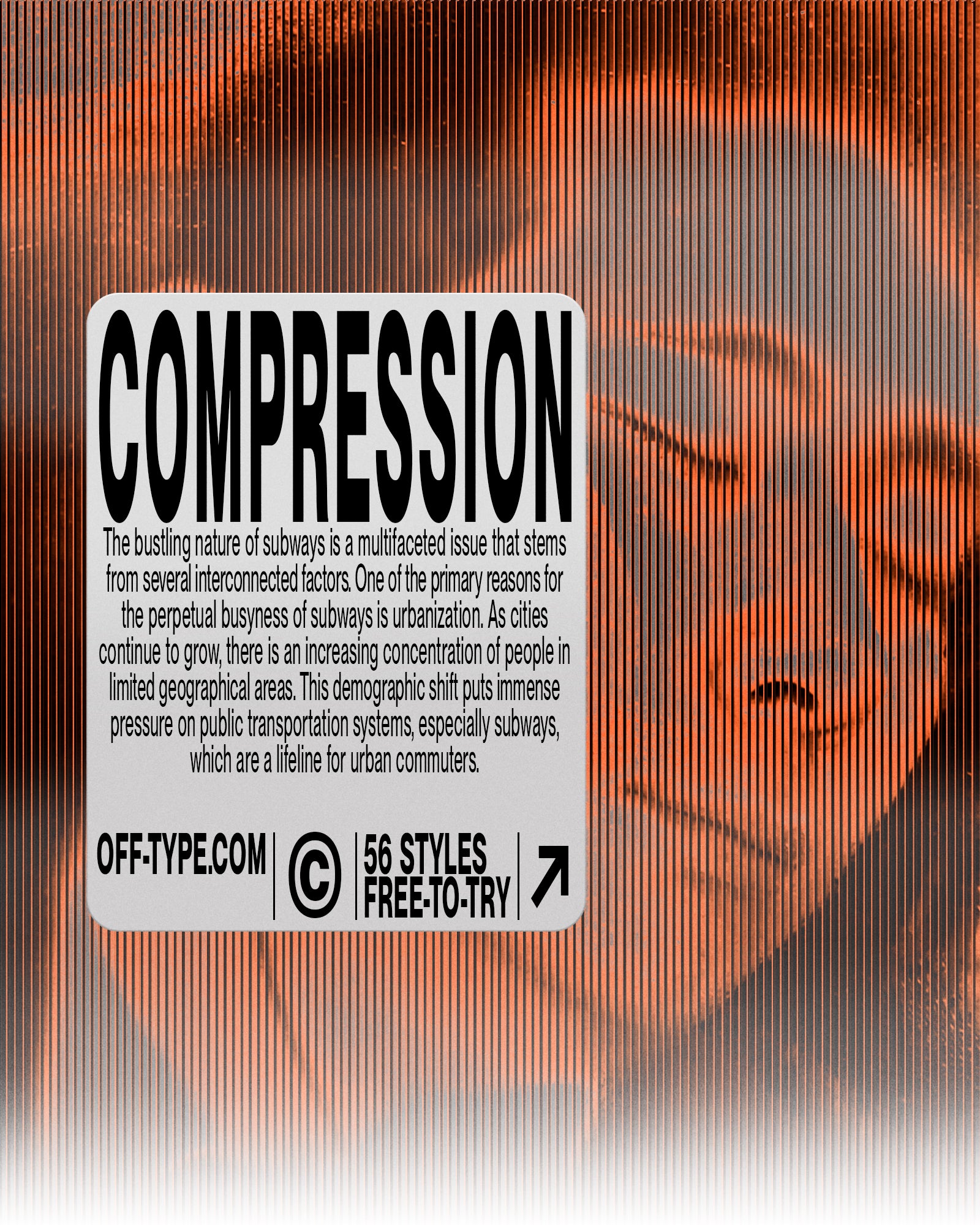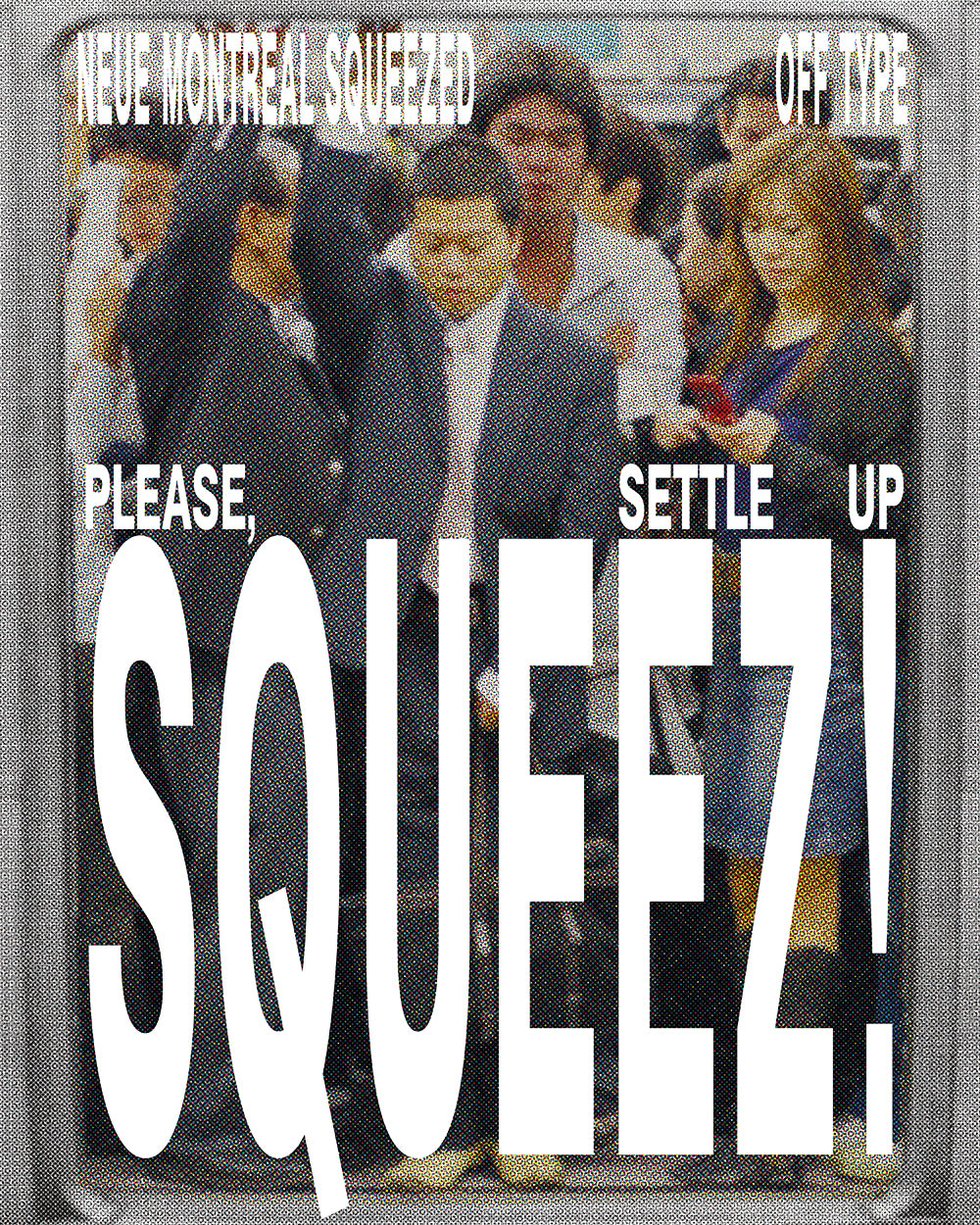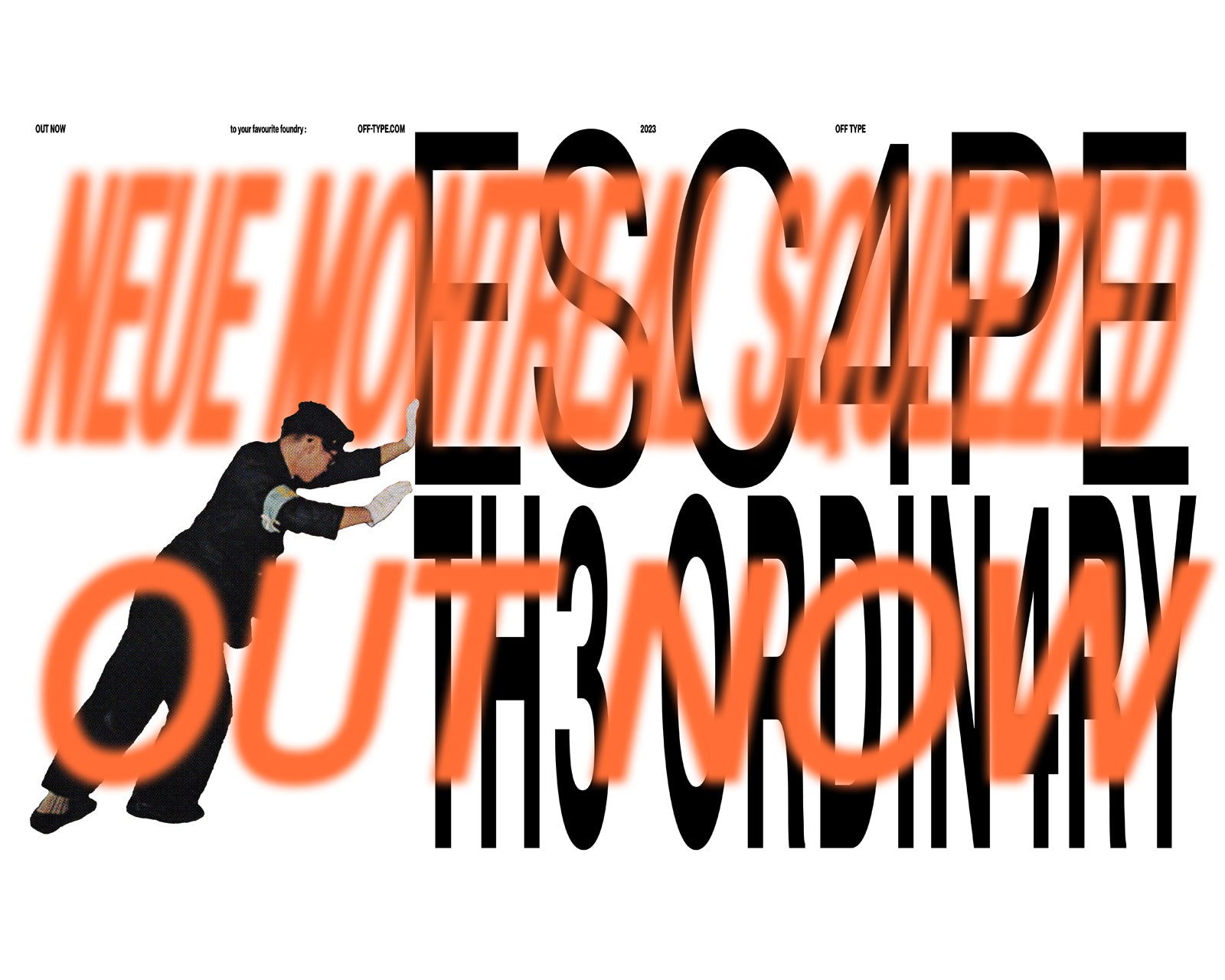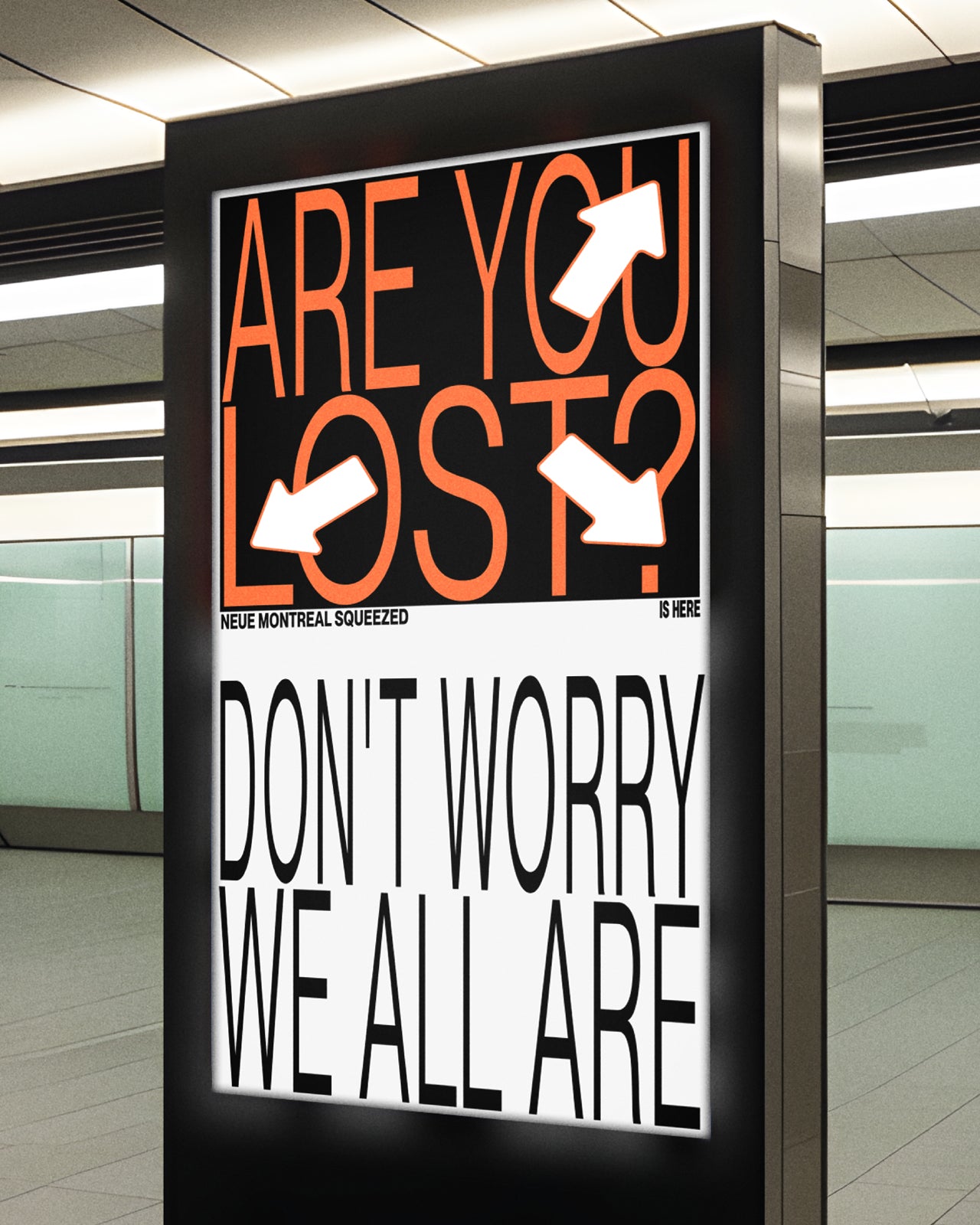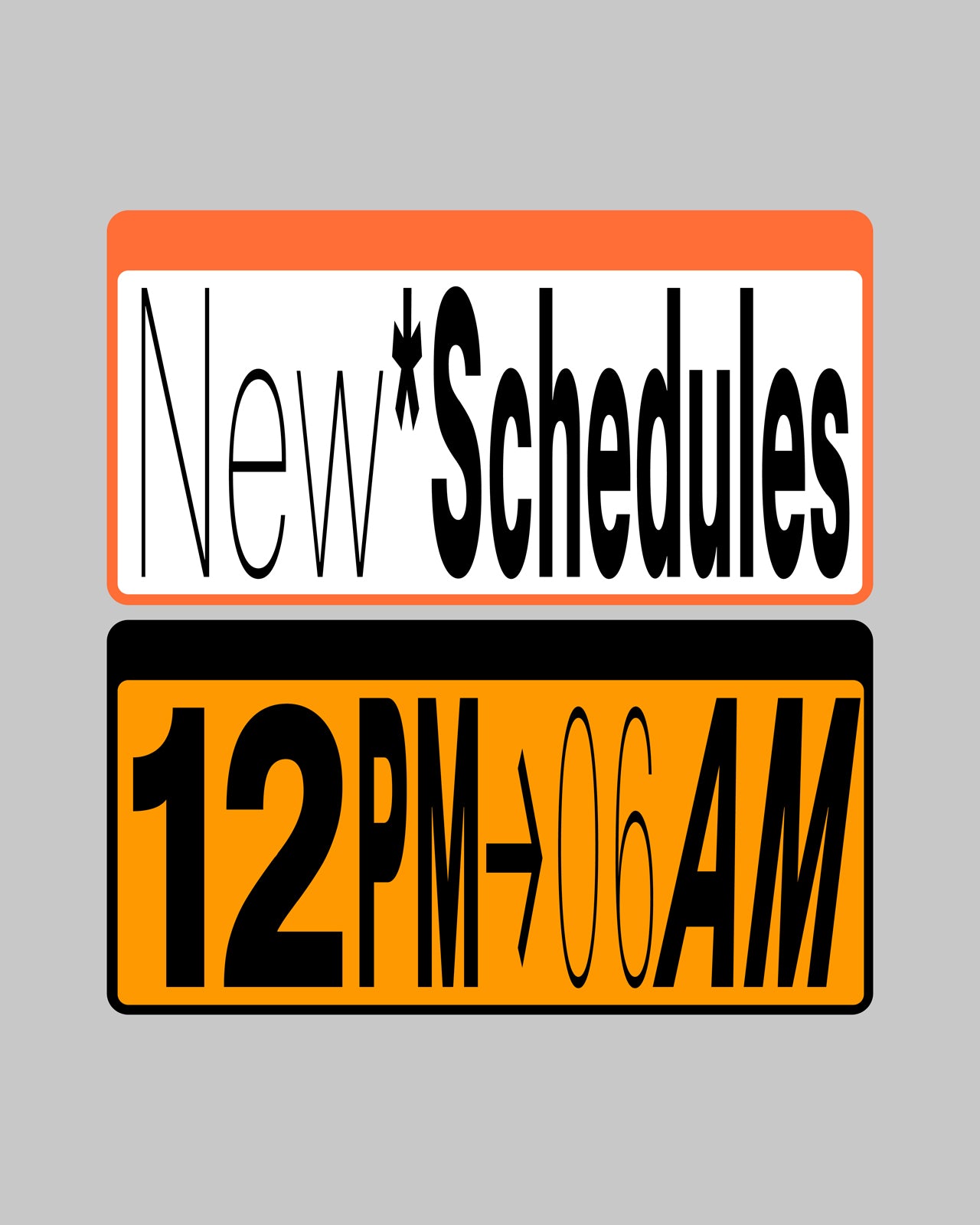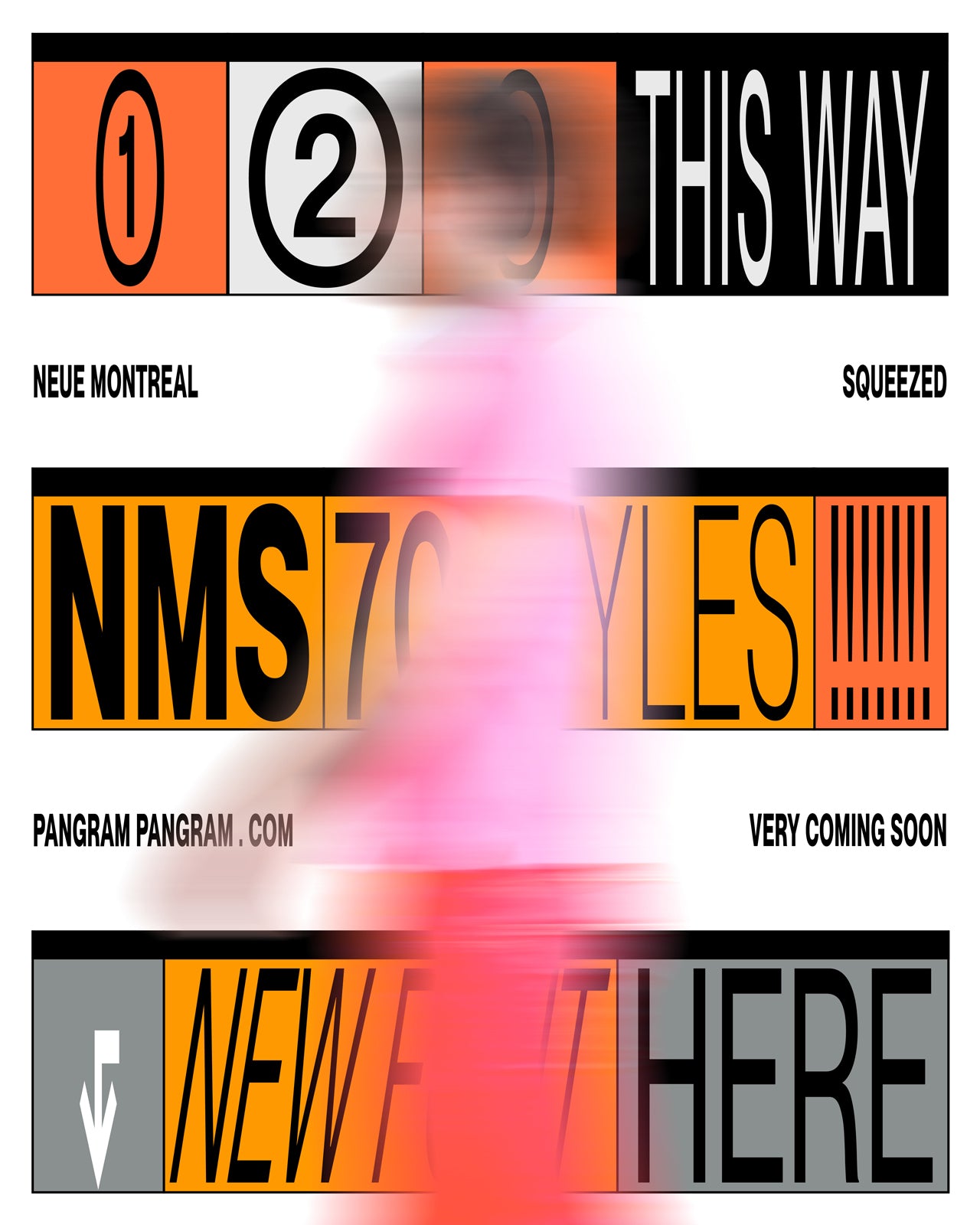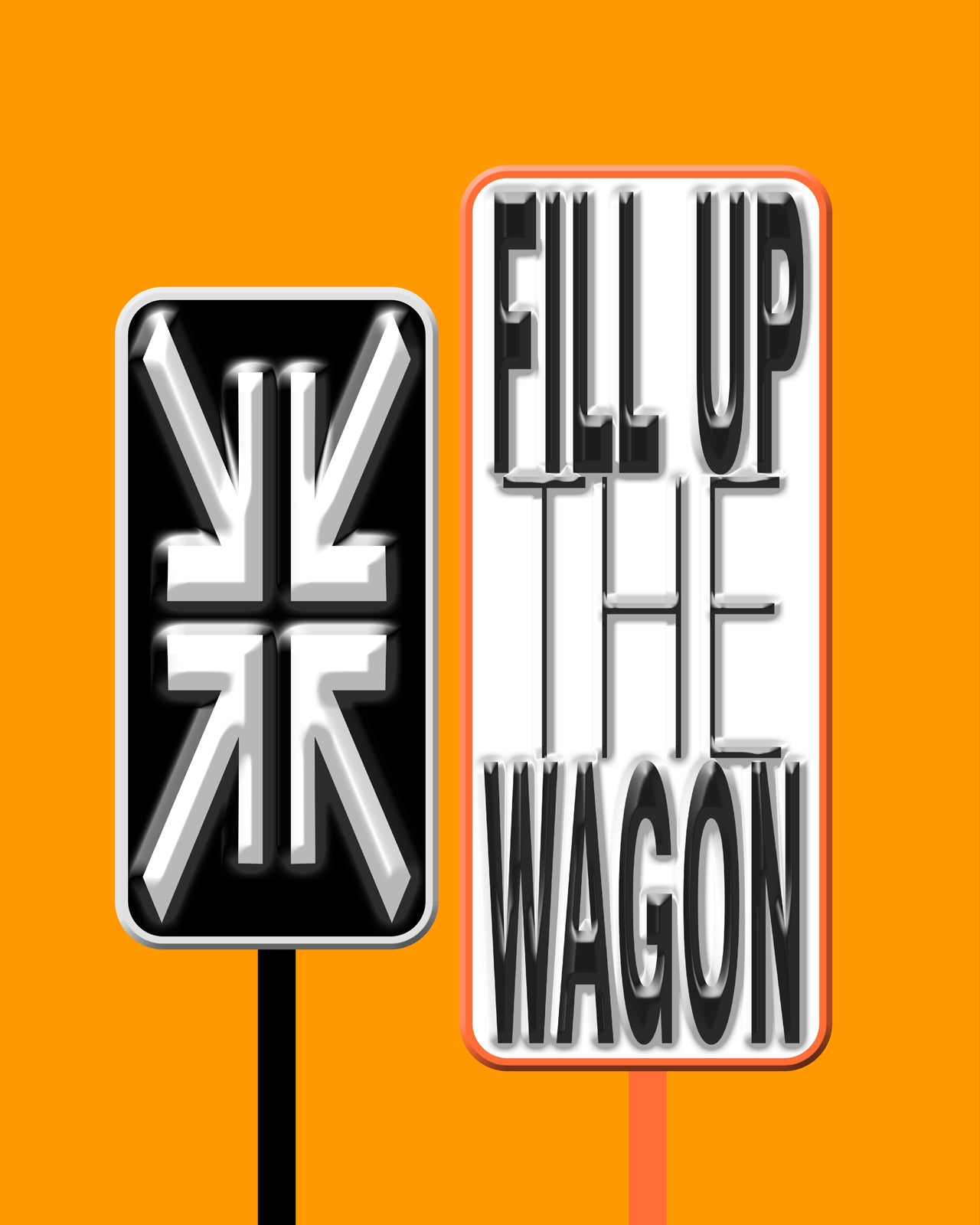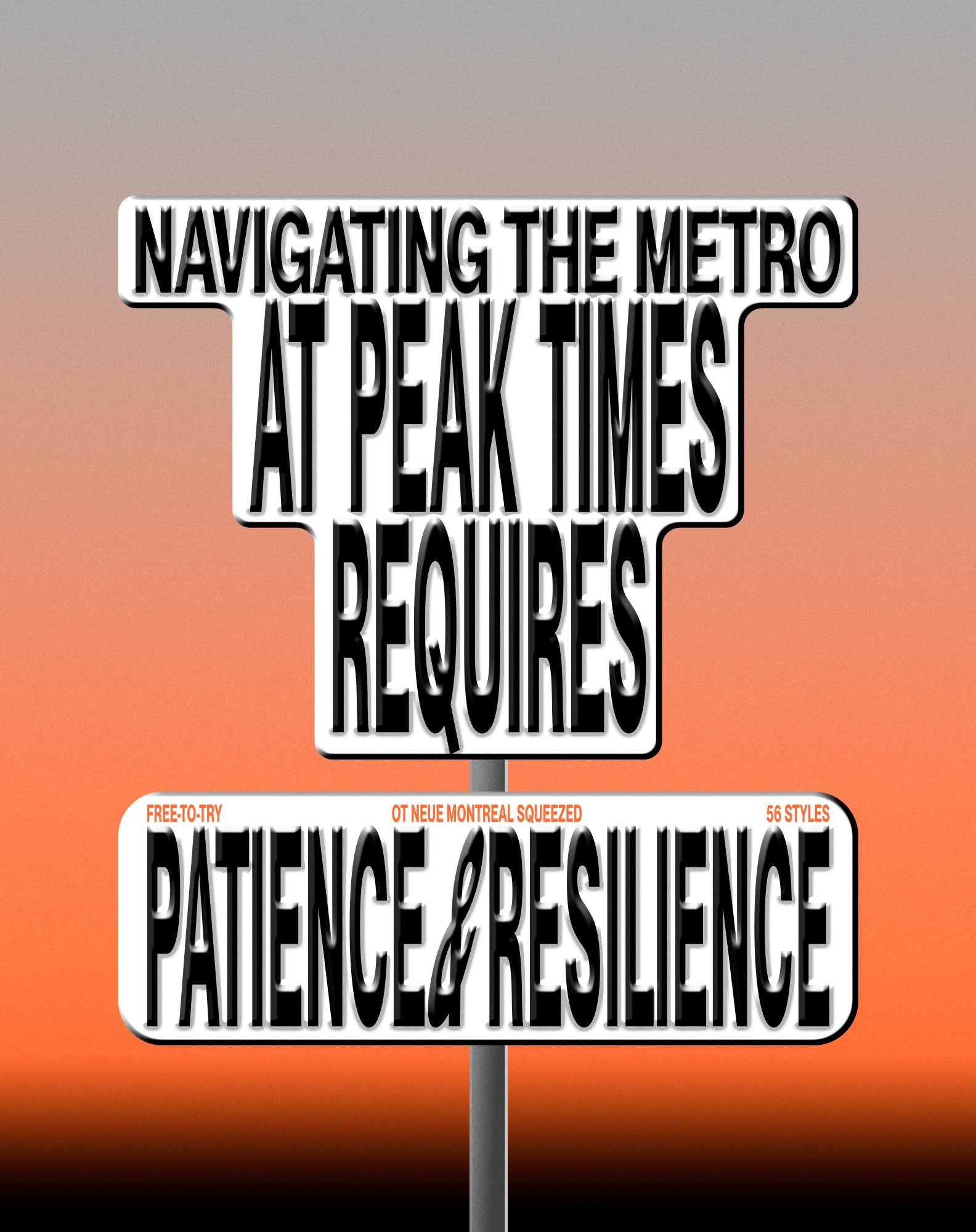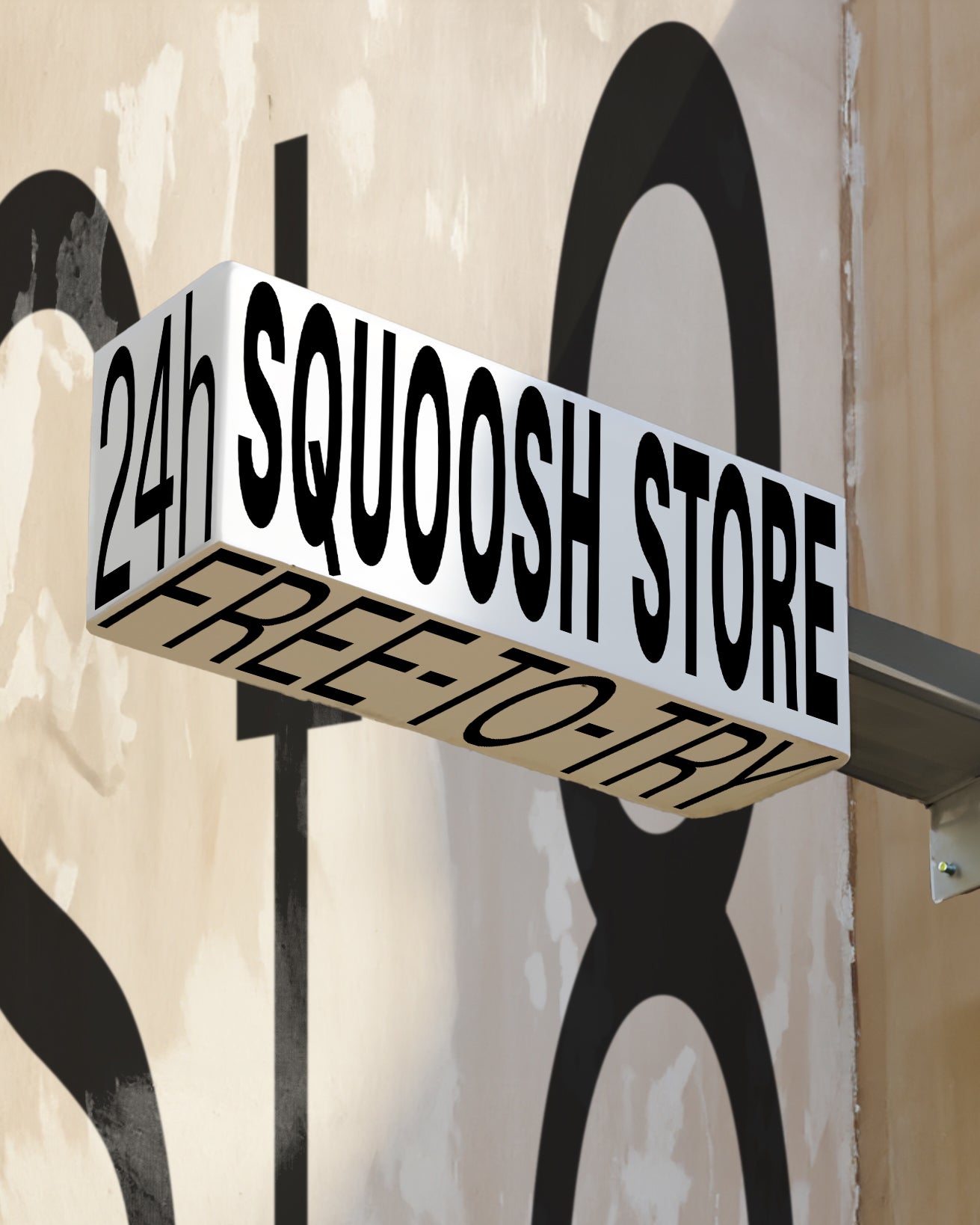
Why waste time compressing fonts yourself when you can get something professionally ultra squeezed?
Neue Montreal Semi Squeezed
Save yourself the hard work. Why waste time compressing fonts yourself when you can get something professionally pressed? Enter: Neue Montreal Ultra Squeezed.
Using the incredibly popular, hard-working, timeless workhorse, city-inspired, Grotesque sans serif Neue Montreal as its basis, its stretched counterpart is just as hard working. It just looks a bit different, is all. Trend-ready, freshly squeezed.